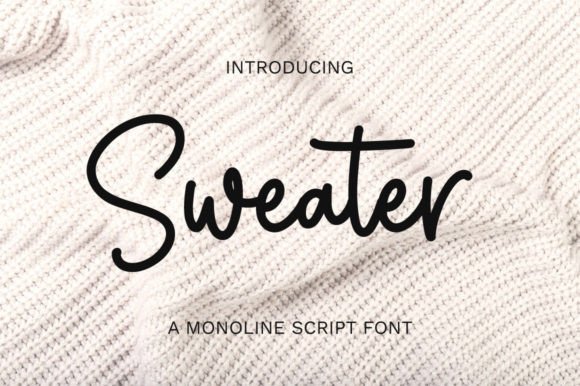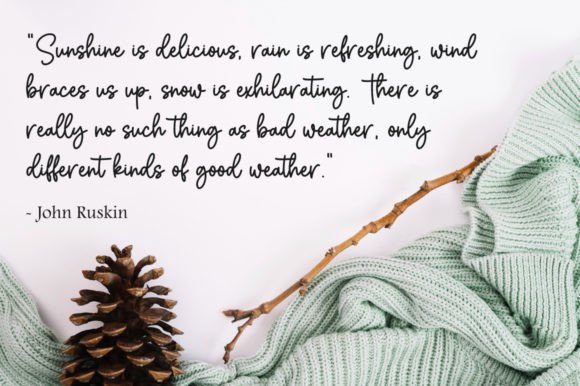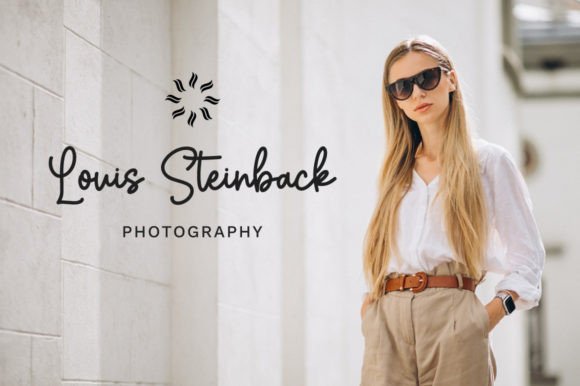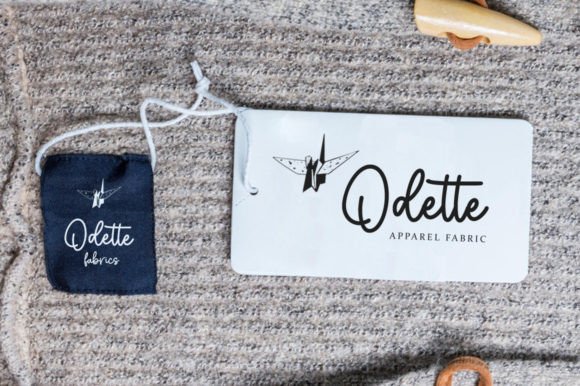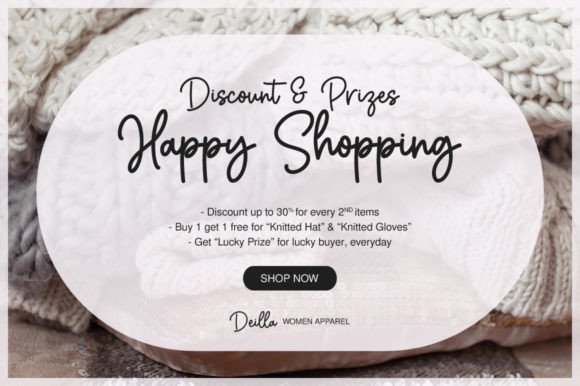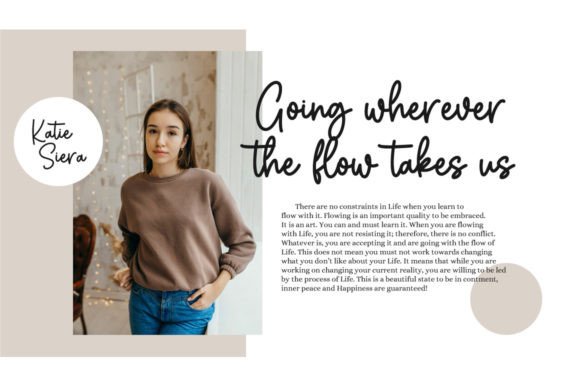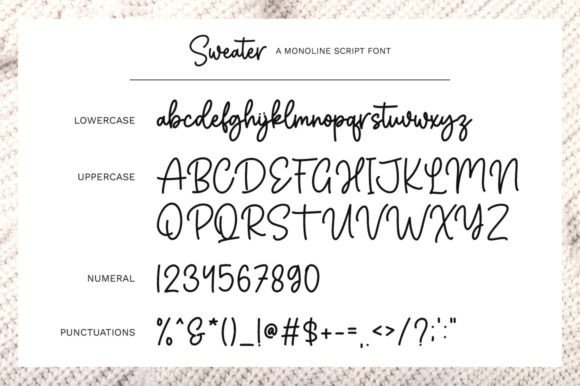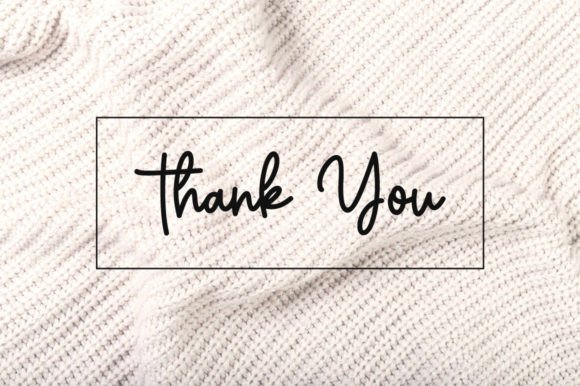
Sweater Font
About Sweater Font
Sweater is a beautiful, well-balanced, and new-style script font. It is defined by smooth curves and is perfect for fashion branding or editorial designs.